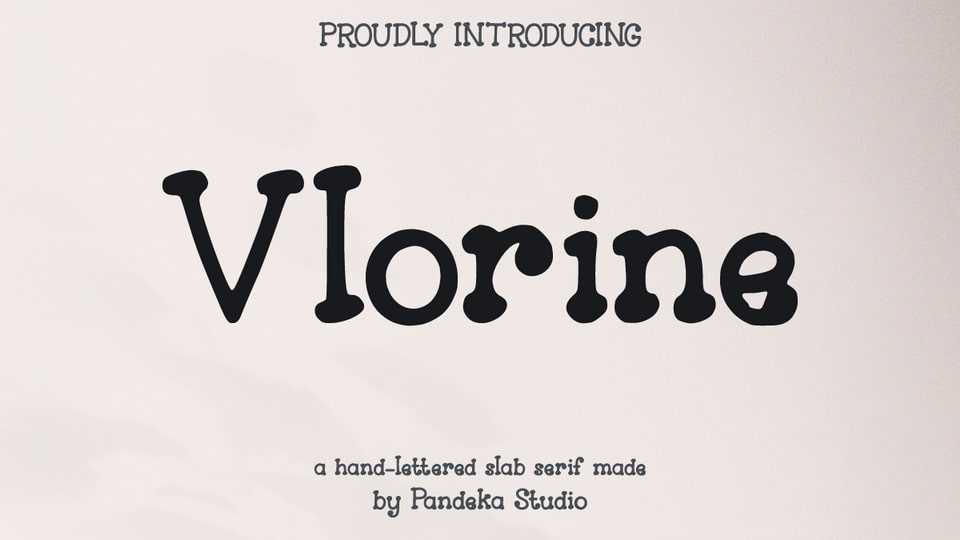
Download Vlorine font, a bold slab serif typeface with hand-lettered charm, perfect for vintage branding, rustic packaging, classic signage, editorial layouts.